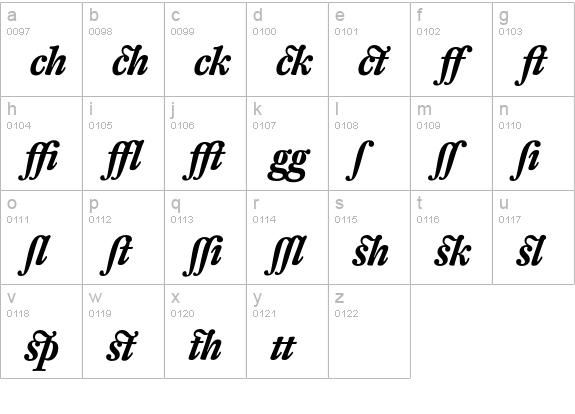
DTL Fleischmann T Bold Italic Alt is a strong, high-contrast, italic variant in the DTL typeface family \xE2\x80\x94 well suited to headlines, attention-grabbing titles, and strong calls-to-action.
The DTL Fleischmann T Bold Italic Alt font is a stunning display typeface that exudes a sense of elegance and sophistication. Its bold italic style adds a touch of flair and drama to any design project, making it perfect for headlines, titles, and other prominent text elements. With its unique blend of classic and modern design elements, this font is sure to make a statement and capture the attention of your audience. What's more, the DTL Fleischmann T Bold Italic Alt font is available for free download at FontsMarket.com. This means you can easily access and use this striking typeface in your creative projects without any cost. Whether you're working on a branding campaign, editorial layout, or any other design endeavor, this font is a valuable asset that will elevate your work to new heights. Don't miss out on the opportunity to enhance your designs with the DTL Fleischmann T Bold Italic Alt font – download it for free today!